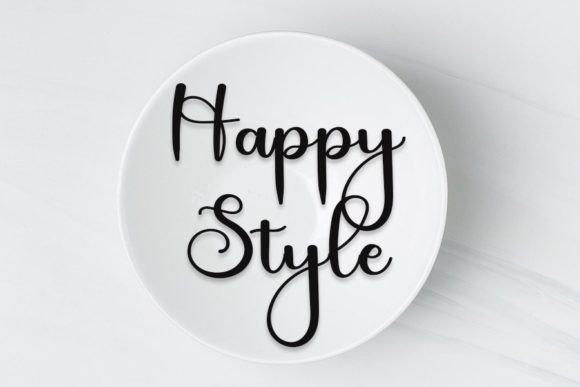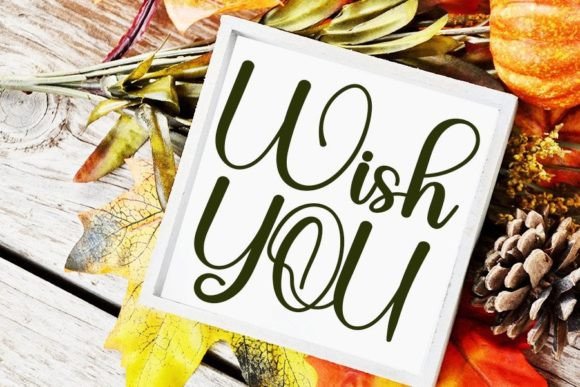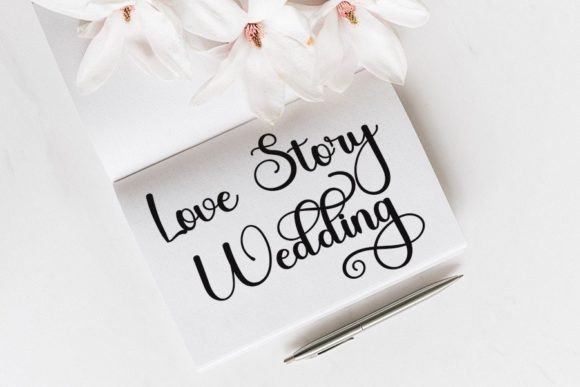
About Straight Font
“Straight” is a stylish handwritten font that introduces a contemporary atmosphere and impeccable form to your projects. Drawing inspiration from timeless classic calligraphy, this font strikes a balance between elegance and modernity, presenting a versatile and sophisticated aesthetic.
The contemporary vibe of “Straight” positions it as a suitable choice for a variety of projects. Its impeccable form ensures a polished and refined appearance, making it adaptable for both formal and creative applications. Whether you’re working on invitations, logos, or any other visual element, “Straight” is crafted to elevate the overall aesthetic of your projects.
Inspired by timeless classic calligraphy, “Straight” captures the grace and charm of traditional script while incorporating a modern touch. This amalgamation results in a font that seamlessly combines the elegance of the past with the contemporary sensibilities of today, offering a versatile option for those seeking a timeless yet fresh style.
The varied and balanced nature of “Straight” allows it to adapt seamlessly to different design elements. Whether used in branding, logos, invitations, or creative projects, this font adds a distinctive touch that captures attention and communicates a sense of style.
In essence, “Straight” is more than just a font; it’s a design element that injects your projects with stylishness, contemporary flair, and a touch of timeless classic calligraphy. With its impeccable form and versatile design, it stands as a go-to choice for a range of applications, allowing you to enhance the beauty of your creative endeavors.